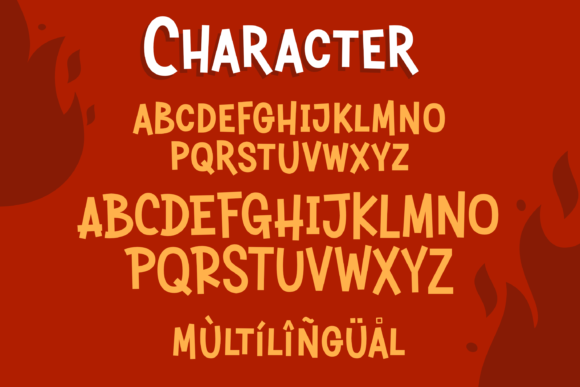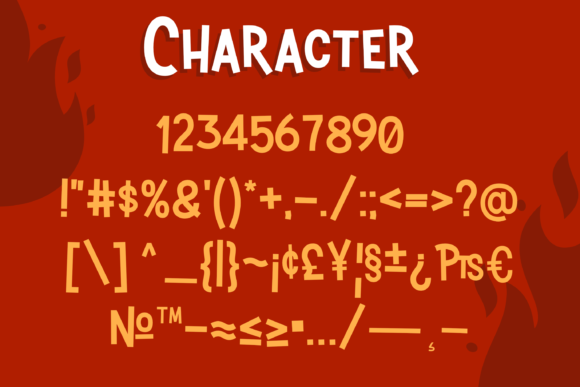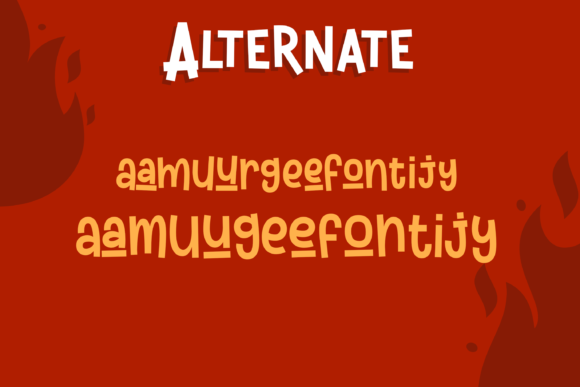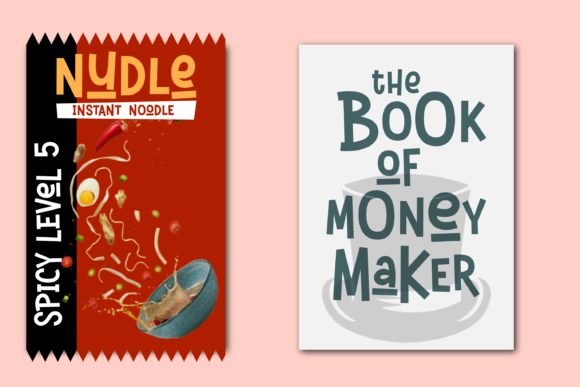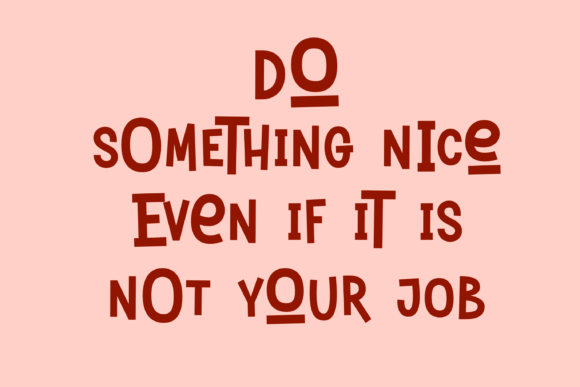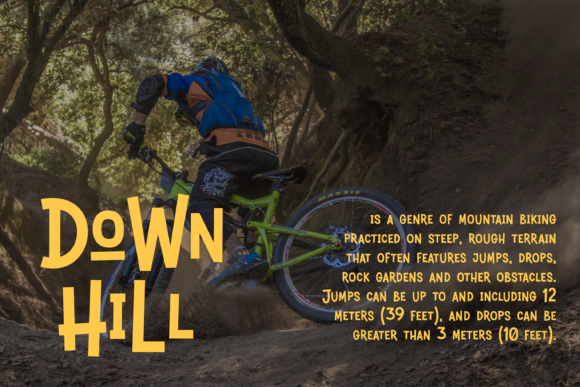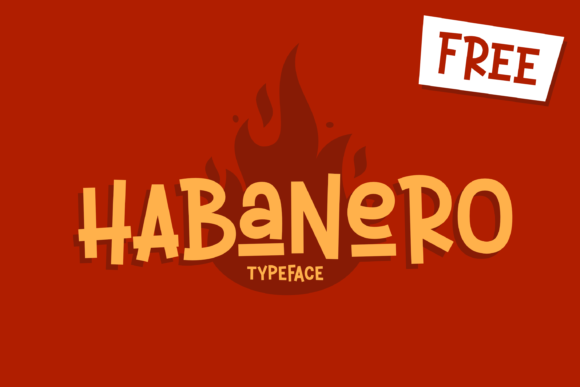
Unleash Your Creativity with Habanero Font: A Fun and Cool Display Font
Are you a designer, crafter, or DIY enthusiast looking for a font that can add a touch of drama and excitement to your projects? Look no further than the Habanero Font! This cool and fun display font is perfect for titles, posters, book covers, invitations, children’s books, and more. With its unique and playful style, Habanero Font is sure to enhance any creation and take it to the next level.
What Makes Habanero Font So Special?
Habanero Font is a standout font that offers a range of features that make it a valuable addition to any font library. Here are just a few reasons why designers and crafters love this font:
• Dramatic Emphasis: Habanero Font is designed to make a statement. Its bold and playful style is perfect for titles or words that need a more dramatic emphasis.
• Versatility: Whether you’re working on a poster, book cover, invitation, or children’s book, Habanero Font is the perfect choice. Its versatility makes it a great asset to have in your font library.
• PUA Encoding: This font is PUA encoded, which means you can access all of the glyphs and swashes with ease. This makes it easy to get creative and experiment with different styles and designs.
Habanero Font is a dream come true for designers and crafters who want to add a personal touch to their projects. Here are just a few ways you can use this font to take your designs to the next level:
• Posters and Flyers: Use Habanero Font to create eye-catching posters and flyers that grab attention and make a statement.
• Book Covers: Add a touch of drama and excitement to your book covers with Habanero Font. It’s perfect for fiction, non-fiction, and children’s books.
• Invitations: Create custom invitations for parties, weddings, and other special events with Habanero Font. Its playful style is sure to set the tone for a fun and memorable occasion.
• Children’s Books: Habanero Font is a great choice for children’s books, with its bold and playful style that’s sure to delight kids and parents alike.
Tips for Getting the Most Out of Habanero Font
Here are a few tips for getting the most out of Habanero Font:
• Experiment with Different Sizes: Habanero Font looks great in a range of sizes, from small and subtle to large and dramatic. Experiment with different sizes to find the one that works best for your project.
• Play with Colors: Habanero Font comes in a range of colors, so don’t be afraid to experiment and find the one that works best for your design.
• Mix and Match with Other Fonts: Habanero Font pairs well with a range of other fonts, so don’t be afraid to mix and match to create a unique and interesting design.
In conclusion, Habanero Font is a cool and fun display font that’s perfect for designers, crafters, and DIY enthusiasts who want to add a touch of drama and excitement to their projects. With its unique and playful style, PUA encoding, and versatility, Habanero Font is a valuable addition to any font library. Whether you’re working on a poster, book cover, invitation, or children’s book, Habanero Font is sure to enhance any creation and take it to the next level.